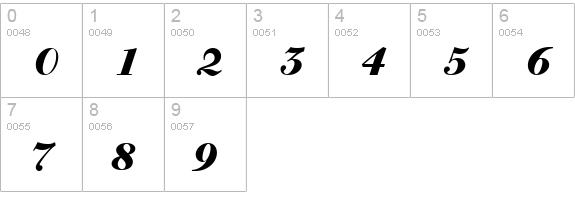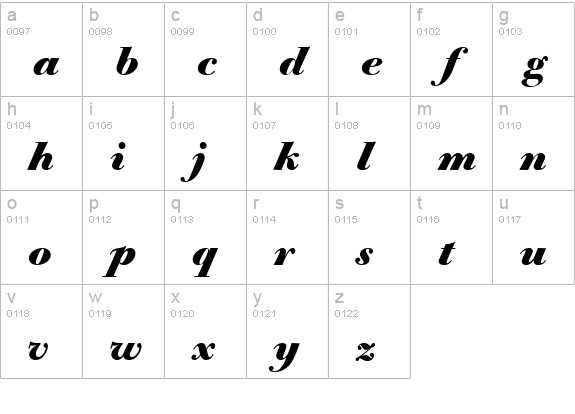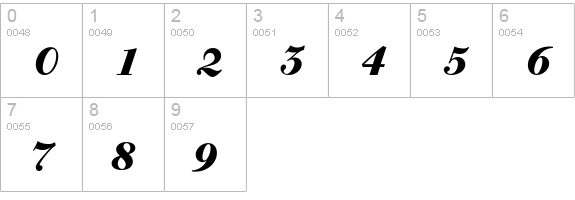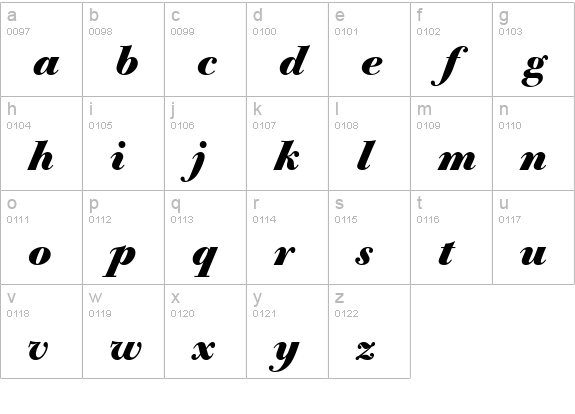
Bodoni Old Face BE Bold Italic Font Details
Bodoni Old Face BE Bold Italic is a strong, high-contrast, italic variant in the Bodoni typeface family \xE2\x80\x94 well suited to headlines, attention-grabbing titles, and strong calls-to-action.
Bodoni Old Face BE Bold Italic font is a timeless and elegant typeface that exudes sophistication and refinement. Its bold and italicized design adds a touch of drama and flair to any text, making it perfect for headlines, titles, and branding materials. The sharp serifs and clean lines of Bodoni Old Face BE Bold Italic font give it a classic and luxurious feel, making it a favorite among designers and typographers. Best of all, Bodoni Old Face BE Bold Italic font is available for free download at FontsMarket.com. This means that you can easily access this stunning typeface without any cost, allowing you to elevate your design projects without breaking the bank. Whether you're working on a print publication, website, or branding campaign, Bodoni Old Face BE Bold Italic font is sure to make a statement and leave a lasting impression on your audience. Download it today and add a touch of sophistication to your designs!